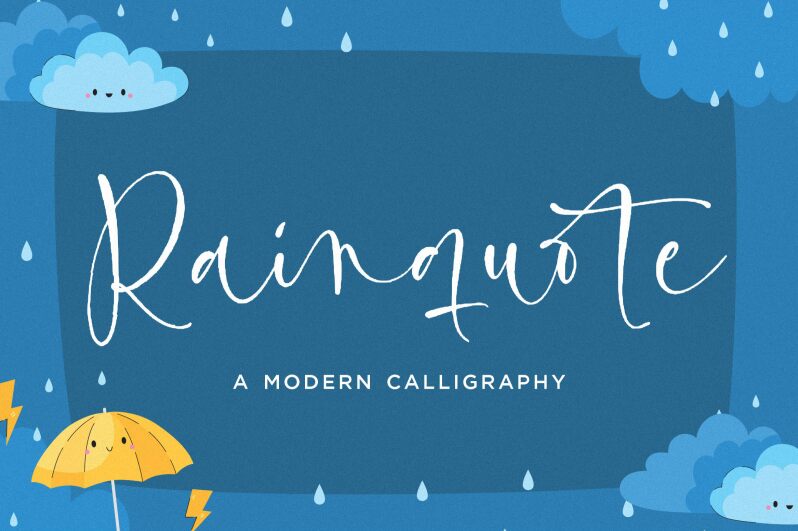
Rainquote
Rainquote font by Balpirick Studio is a lovely handwritten font with beautiful organic lines that flow naturally. Imbuing a sense of friendliness and casualness, it produces a comforting feel to the observer. Its natural elegance flows throughout the different body size strengths giving it versatility for both small and large typography sizes.
Rainquote font would be indispensable in greeting cards, packaging, labels, bookmarks, flyers, digital app elements (buttons and banners), book covers, websites or blogs labels/images. Not limiting itself to these categories only as much more freedom is possible with this free handwritten font!